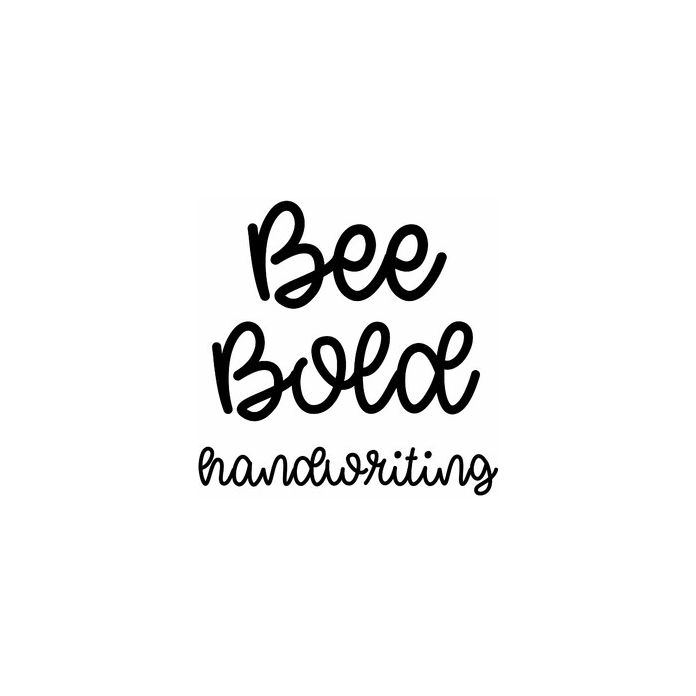
Bee Bold handwriting is a cute thick marker font for notes, labels, stickers, cards, signs, and personalization projects. Includes alphabet, numbers, and punctuation.